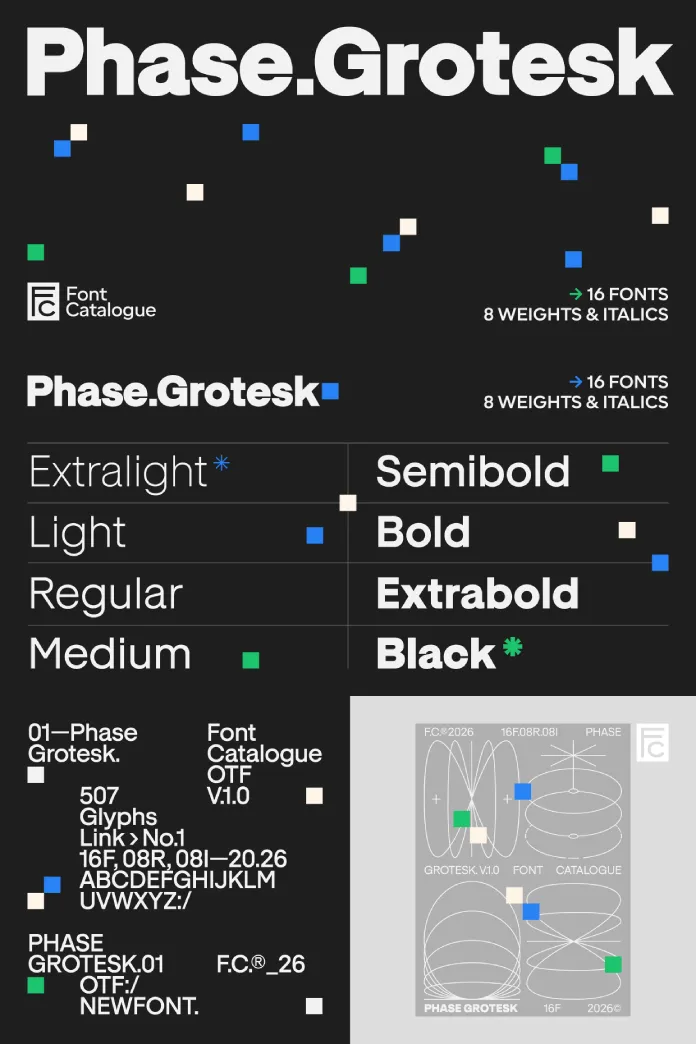
Phase Grotesk showed up on my desktop during a brand refresh project, and it refused to behave like a normal grotesque. Most low-contrast sans-serif fonts try to look flawless. This font family does the opposite. It keeps small stroke irregularities on purpose, and that single decision changes how the whole typeface behaves at every size. I spent three weeks testing the Phase Grotesk font family across UI screens, editorial layouts, and oversized posters, and this article documents exactly what I found.
Why Does Phase Grotesk Feel Different From Every Other Grotesque Typeface?
Phase Grotesk is built by Luciano Vergara, Jorge Cisterna, Daniel Hernández, and Felipe Sanzana for the foundry Font Catalogue. It belongs to the low-contrast sans-serif family, so stroke weights stay consistent across every letterform. Nothing new there. What sets it apart is a design principle I now call Controlled Imperfection: the deliberate retention of small optical inconsistencies that most modern typefaces erase during digitization.
Here is my working thesis after testing the font: Phase Grotesk treats imperfection as information, not noise. Contemporary grotesque fonts chase geometric purity. Phase Grotesk instead references early signage sans-serifs, forgotten specimen catalogs, and typefoundries that no longer exist. Those sources carried small stroke inconsistencies and uncorrected optical adjustments. The typeface keeps them intact, and that choice gives the typeface a tone that feels handmade rather than templated.
The Low-Contrast Principle Behind Phase Grotesk
Low contrast means the thick and thin parts of each letter stay close in weight. Phase Grotesk applies this principle with unusual discipline. Strokes stay level across the whole family, which creates a stable rhythm when you set long paragraphs. I tested this rhythm across a 3,000-word article layout, and the text block held together without visual noise interrupting the reading line.
Closed Apertures, Open Questions
This typeface closes its apertures tightly. The lowercase “e,” “c,” and “a” let very little light into their counters. I call this trait Aperture Discipline, and it explains why the font reads as technical rather than friendly at first glance. Closed apertures usually reduce legibility at small sizes, so I ran a direct comparison against two competing grotesques at 11px on a mobile screen. Phase Grotesk held its shape better than expected, though I would still avoid sizes below 12px for body copy on low-resolution displays.
My Scale Integrity Test for Phase Grotesk
Every typeface claims to work “at any size.” Few actually do. So I built a simple test I now call the Scale Integrity Test: set the same paragraph at 9px, 24px, 96px, and 240px, then check whether the letterforms stay coherent. The typeface passed this test in an interesting way. Its irregularities become visible at large display sizes, where you can actually see the compressed curves and the intentionally avoided perfect circle. At text size, those same irregularities soften and disappear into the reading flow.
This is the real innovation inside Phase Grotesk. Most typefaces optimize for one context and sacrifice the other. This typeface was clearly built to survive both a billboard and a footnote, and it does so without needing separate optical masters for each size band.
Phase Grotesk in UI Design: Function Meets Presence
User interface designers care about two things above almost everything else: legibility and personality. The font family offers both, but not equally at every weight. I tested the regular and medium weights inside a dashboard prototype with dense data tables, and both weights stayed calm and readable under pressure. The Bold and Black weights, on the other hand, carry real presence and work best in headlines, buttons, or short bursts of interface copy.
For teams building a design system, Phase Grotesk gives you enough range to avoid mixing font families. That matters because font pairing mistakes are one of the most common ways a brand identity starts to look inconsistent across products.
The Phase Grotesk Type System: 16 Styles, 8 Weights
Phase Grotesk ships as 16 fonts across 8 weights, each with a matching italic. That range covers Thin through Black, giving art directors a full tonal scale inside one coherent system. Because every weight shares the same Aperture Discipline and Controlled Imperfection traits, switching between weights never breaks the visual identity of a layout.
How I Structured My Test Suite
I built three test documents: a poster with extreme scale and overlapping type, an editorial spread with body copy and pull quotes, and a UI kit with buttons, labels, and form fields. The Phase Grotesk font family performed differently in each context, but it never felt out of place. That consistency across contexts is rare, and it is the strongest practical argument for choosing the typeface on a multi-platform brand project.
Is this typeface good for small text sizes?
Yes, though I recommend staying at 12px or larger for body copy, since the closed apertures can lose clarity below that threshold on low-resolution screens.
What makes it different from other grotesque fonts?
The Phase Grotesk font family keeps small optical irregularities from historical signage typefaces instead of correcting them, a trait this article calls Controlled Imperfection.